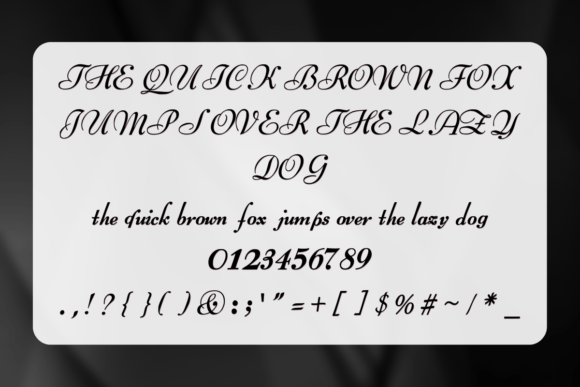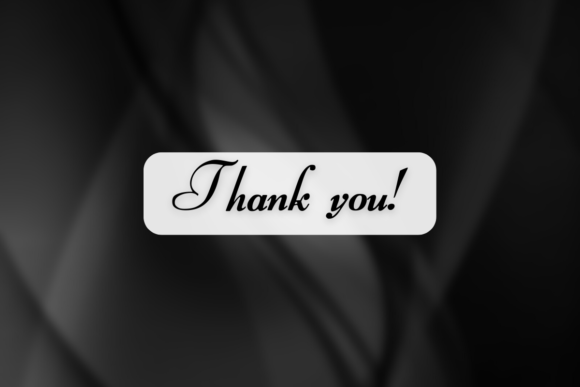
Elevate Your Designs with Classy Script Font: The Ultimate Guide
Are you looking for a font that exudes elegance, sophistication, and style? Look no further than Classy Script Font! This beautiful, chic, and elegant script font is perfect for any project that needs a classy and unique touch. In this article, we’ll dive into the world of Classy Script Font, exploring its features, uses, and benefits for designers and crafters.
What is Classy Script Font?
Classy Script Font is a stunning script font that boasts a unique and elegant design. Its flowing lines, intricate details, and refined aesthetic make it perfect for adding a touch of sophistication to any project. Whether you’re working on a wedding invitation, card, logo, headline, or feminine design, Classy Script Font is sure to impress.
Features of Classy Script Font
So, what makes Classy Script Font so special? Here are just a few of its key features:
- Elegant Design: Classy Script Font features a beautiful, flowing design that’s perfect for creating elegant and sophisticated text.
- Unique Style: With its intricate details and refined aesthetic, Classy Script Font is sure to stand out from the crowd.
- Versatile: Classy Script Font is perfect for a wide range of projects, from wedding invitations and cards to logos, headlines, and feminine designs.
Uses of Classy Script Font
So, what can you use Classy Script Font for? The possibilities are endless! Here are just a few ideas to get you started:
- Wedding Invitations: Add a touch of elegance to your wedding invitations with Classy Script Font.
- Cards: Create beautiful, handmade cards for special occasions like birthdays, anniversaries, and holidays.
- Logos: Use Classy Script Font to create a sophisticated and memorable logo for your business or brand.
- Headlines: Add a touch of style to your headlines and titles with Classy Script Font.
- Feminine Designs: Classy Script Font is perfect for creating feminine designs, such as planners, journals, and wall art.
Benefits of Using Classy Script Font
So, why should you choose Classy Script Font for your next project? Here are just a few benefits:
- Adds Elegance: Classy Script Font adds a touch of elegance and sophistication to any project.
- Unique Style: Classy Script Font is sure to stand out from the crowd, making your project truly unique.
- Versatile: Classy Script Font can be used for a wide range of projects, making it a great addition to your font library.
Tips for Using Classy Script Font
Here are a few tips for getting the most out of Classy Script Font:
- Use it Sparingly: Classy Script Font is perfect for adding a touch of elegance to your project, but use it sparingly to avoid overwhelming the design.
- Pair it with Other Fonts: Classy Script Font pairs well with other fonts, so don’t be afraid to experiment with different combinations.
- Experiment with Colors: Classy Script Font looks great in a variety of colors, so don’t be afraid to experiment and find the perfect hue for your project.
| Font Name | Classy Script Font |
| Author | Nova Creations |
In conclusion, Classy Script Font is a beautiful, chic, and elegant script font that’s perfect for any project that needs a classy and unique touch. With its elegant design, unique style, and versatility, Classy Script Font is sure to become a favorite in your font library. So why wait? Add Classy Script Font to your creative arsenal today and start creating stunning designs that are sure to impress!